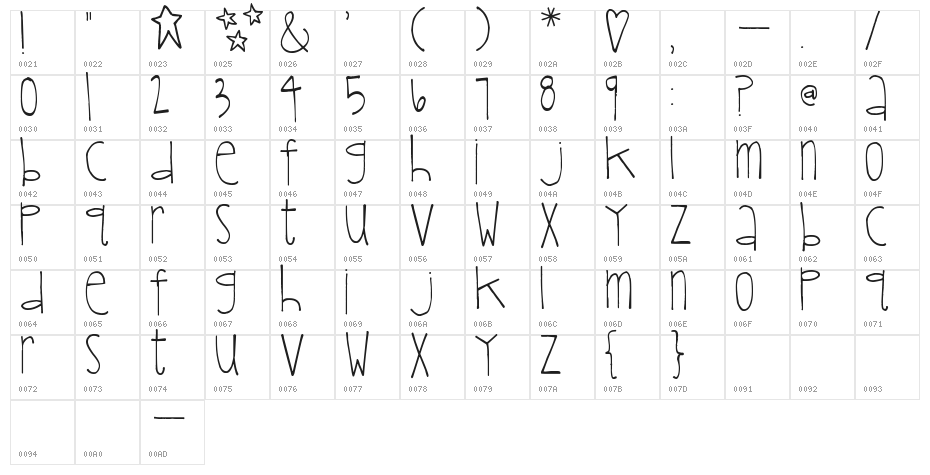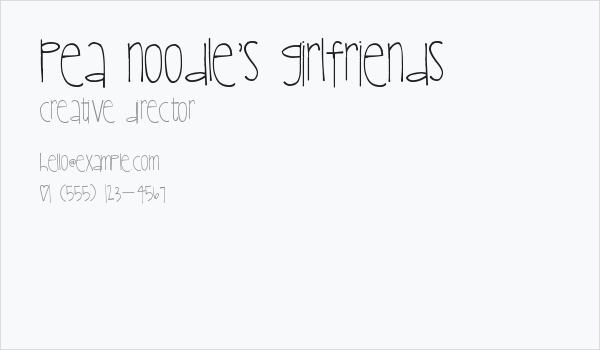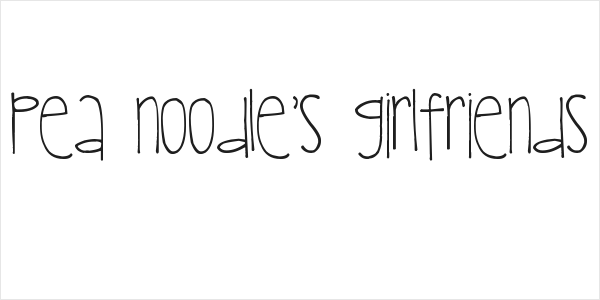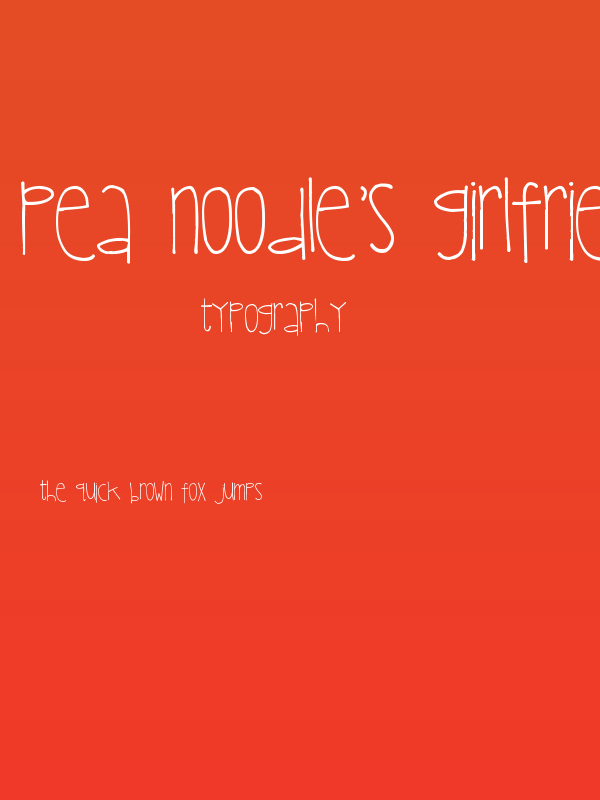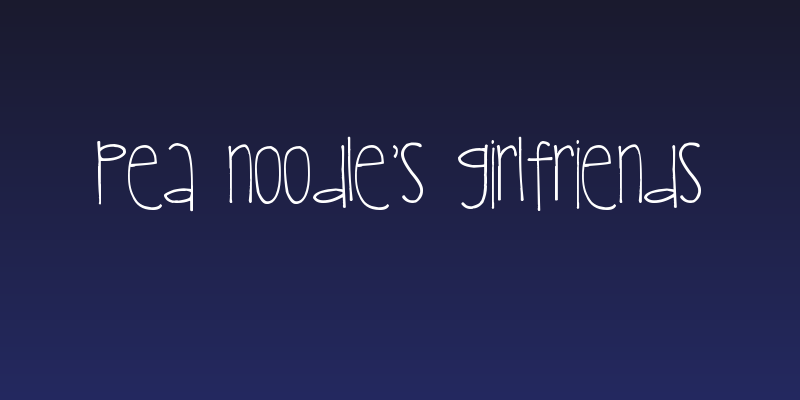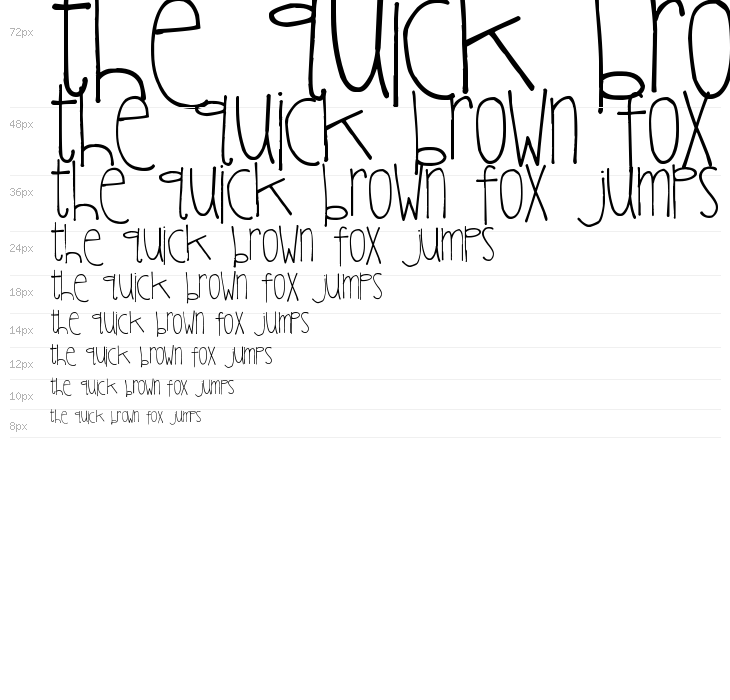
Pea Noodle's Girlfriends Font
Pea Noodle's Girlfriends Description
This playful and whimsical font features tall, narrow characters with a hand-drawn appearance. The letters are slightly irregular, giving them a casual and friendly vibe. The uppercase and lowercase letters maintain a consistent style, with elongated vertical strokes and rounded edges. The numbers and special characters follow the same quirky design, adding to the font's charm. This font is perfect for projects that require a fun and informal touch, such as children's books, greeting cards, or playful branding.
| Overall Style | Whimsical |
| Proposed Projects | Ideal for children's books, greeting cards, playful branding, and casual invitations. |